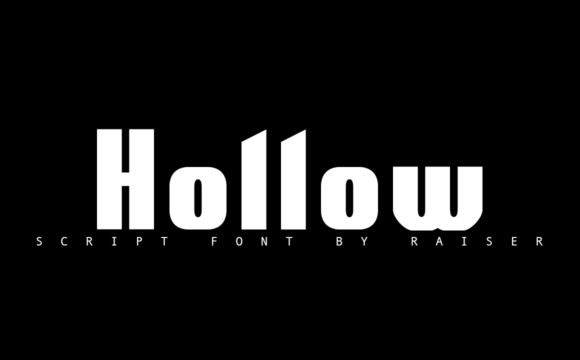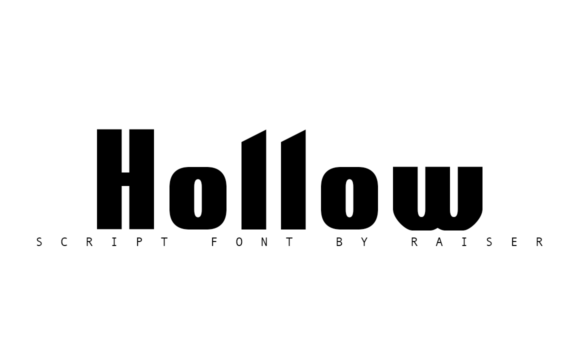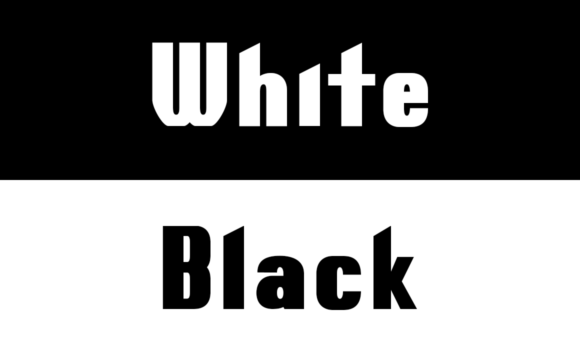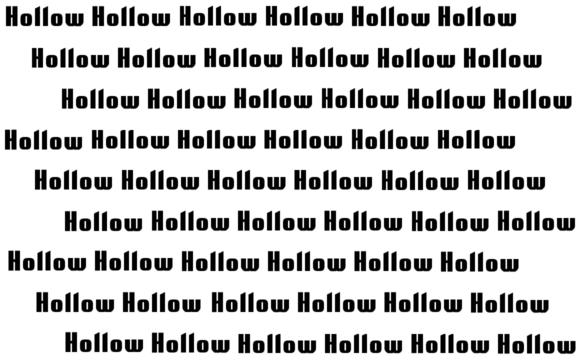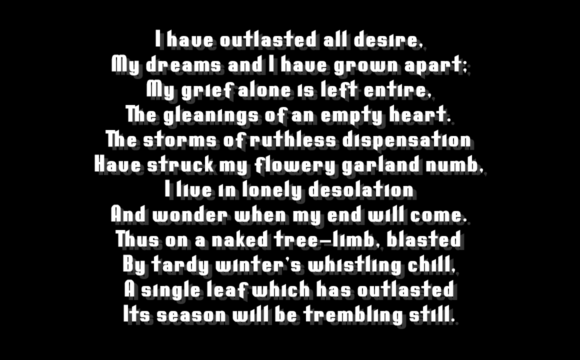
HomePersonal Use FreeHollow Personal Use Free Hollow FacebookTwitterPinterestWhatsApp 1 of 5 About Hollow Font Hollow is a bold display font, carefully handcrafted to become a true favorite. This font is the perfect fit for all of your logos, branding, social media, and crafty DIY projects. DOWNLOAD NOW People also explored Shadow Hunter Font Whinsel Font Ainsley Font Butterfly Signature Font Fabrik Font Quindlen Font Okinawa Font Sansha Font Kelly Bella Canvas 3001 T Shirt Mockup 120 0 TagsAll Hollows Eve FontHollow Font Previous articleCoffeteNext articleZalitta LEAVE A REPLY Cancel reply Comment: Please enter your comment! Name:* Please enter your name here Email:* You have entered an incorrect email address! Please enter your email address here Website: Save my name, email, and website in this browser for the next time I comment. Personal Use Free Alphakind Personal Use Free Read more about this font Rionaldo Angelo Personal Use Free Read more about this font Joystix Monospace Personal Use Free Read more about this font Archeology Personal Use Free Read more about this font BLOG Free Fonts Risk: Why Free Fonts Can Be Dangerous for Designers Free Fonts Risk: Why Free Fonts Can Be Dangerous for Designers Using free fonts is a common practice in web and graphic design. However, the... Free vs Paid Fonts: Why Investing in Premium Fonts Is Worth It Best Fonts for T-Shirt Design – Top 2025 Picks Top 7 Google Fonts Alternatives for Faster and Privacy-Friendly Web Design (2025)